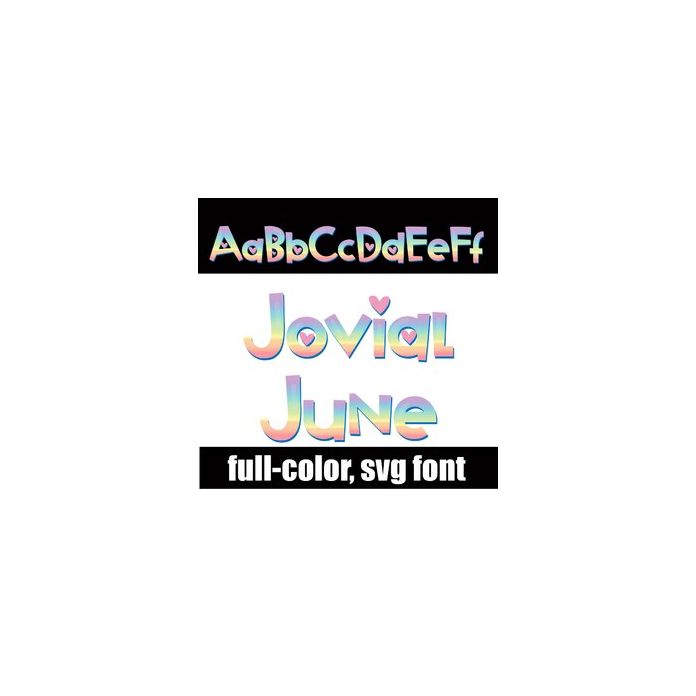
This full-color font features a pastel-colored rainbow on each letter. This font works best for titles, displays, posters and more. Please note color fonts will show as black in non compatible programs. This font type is compatible with Silhouette Studio.